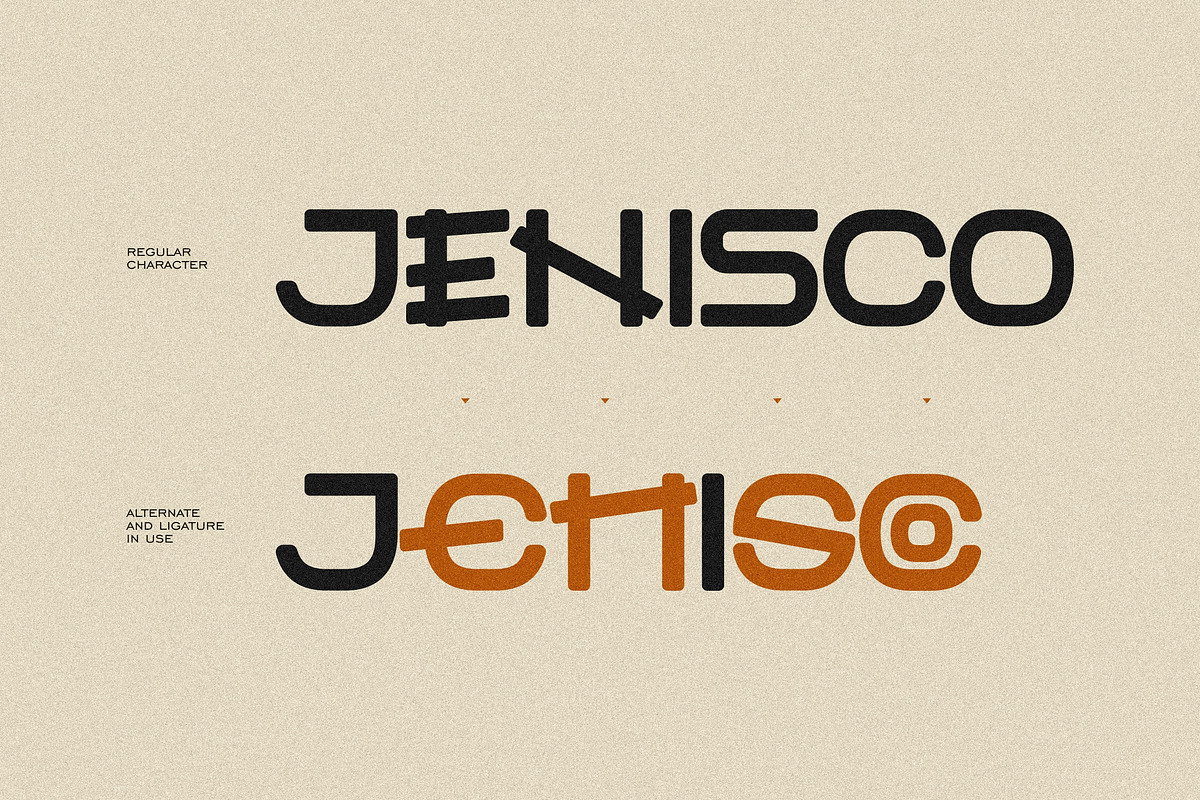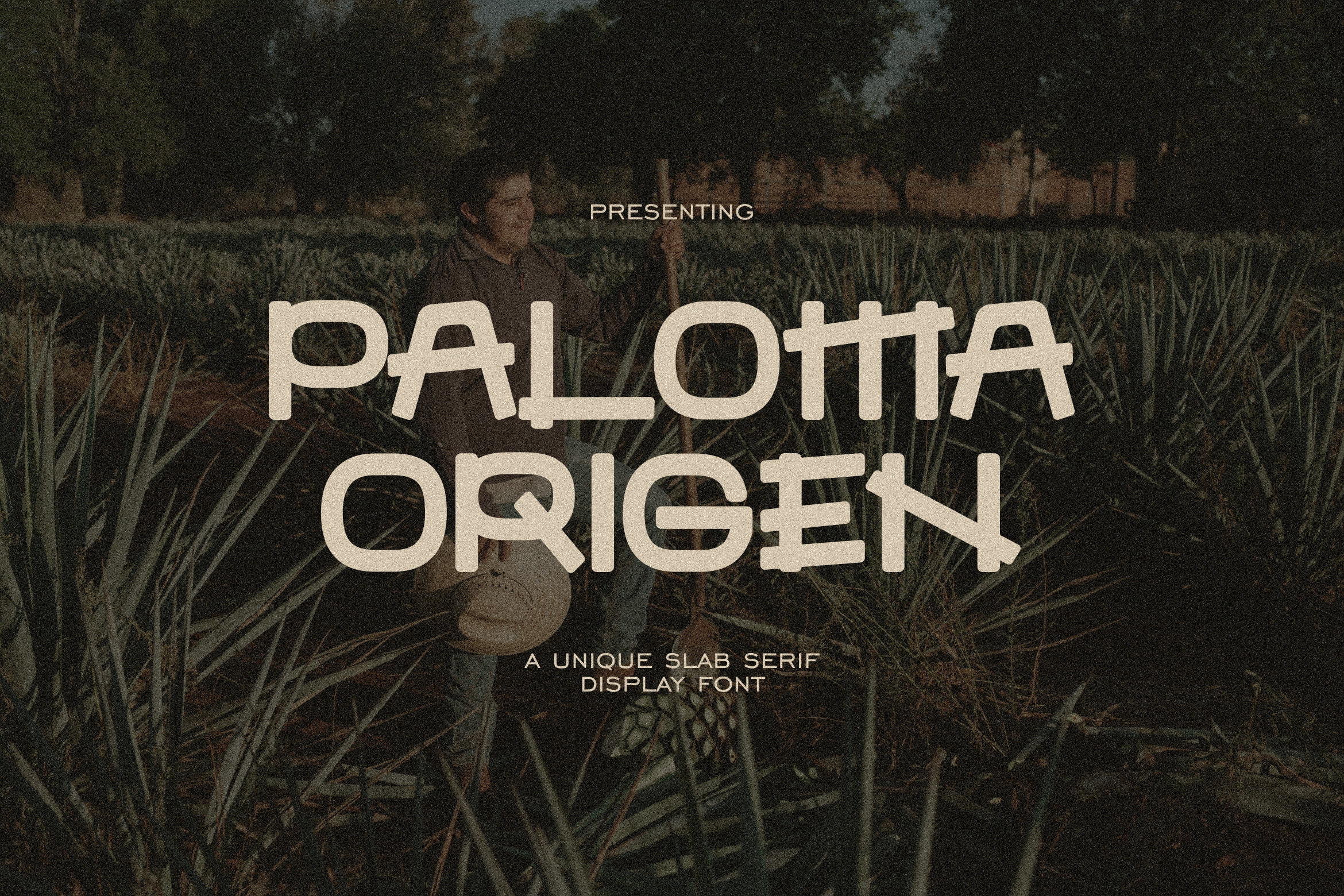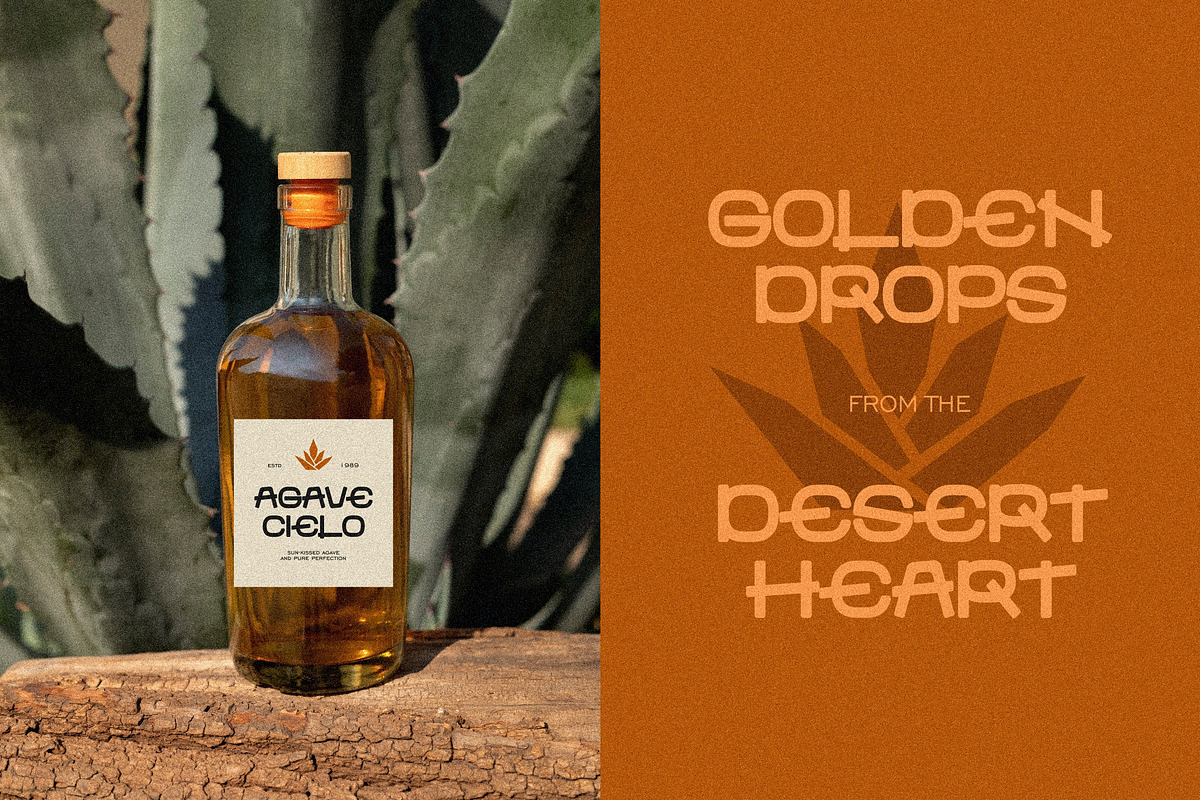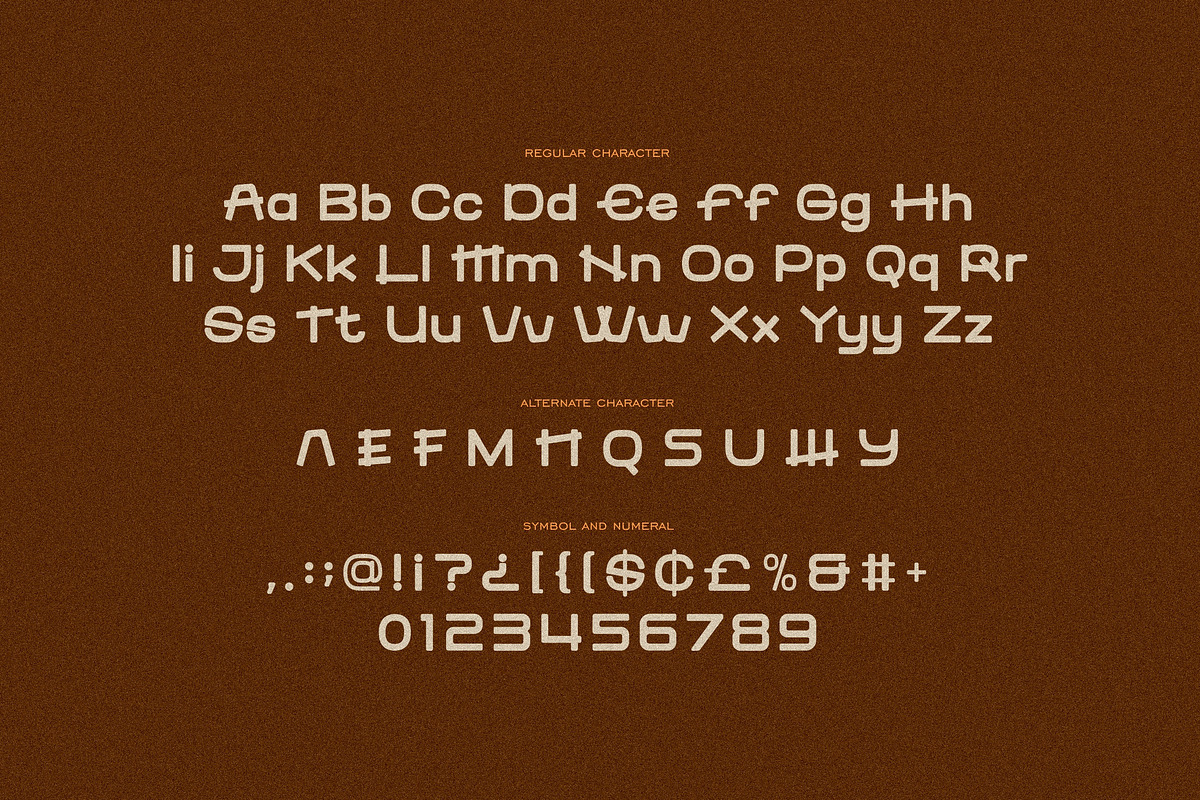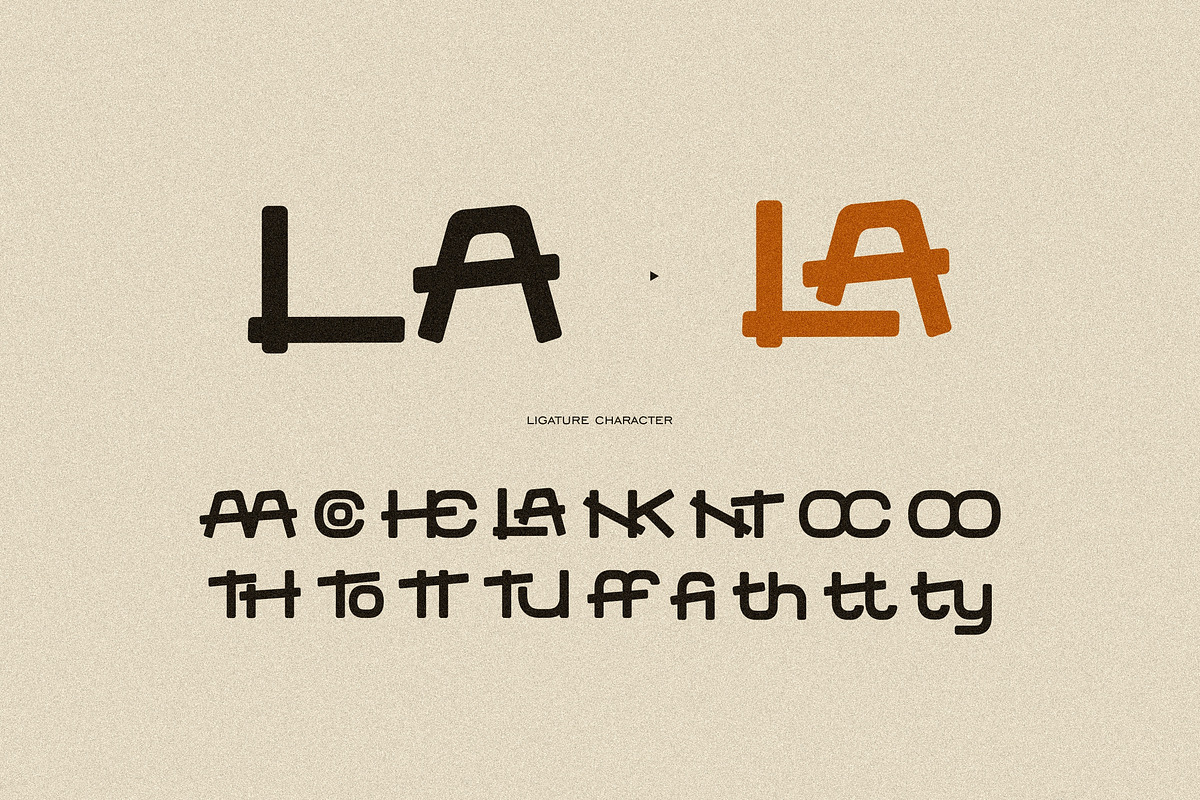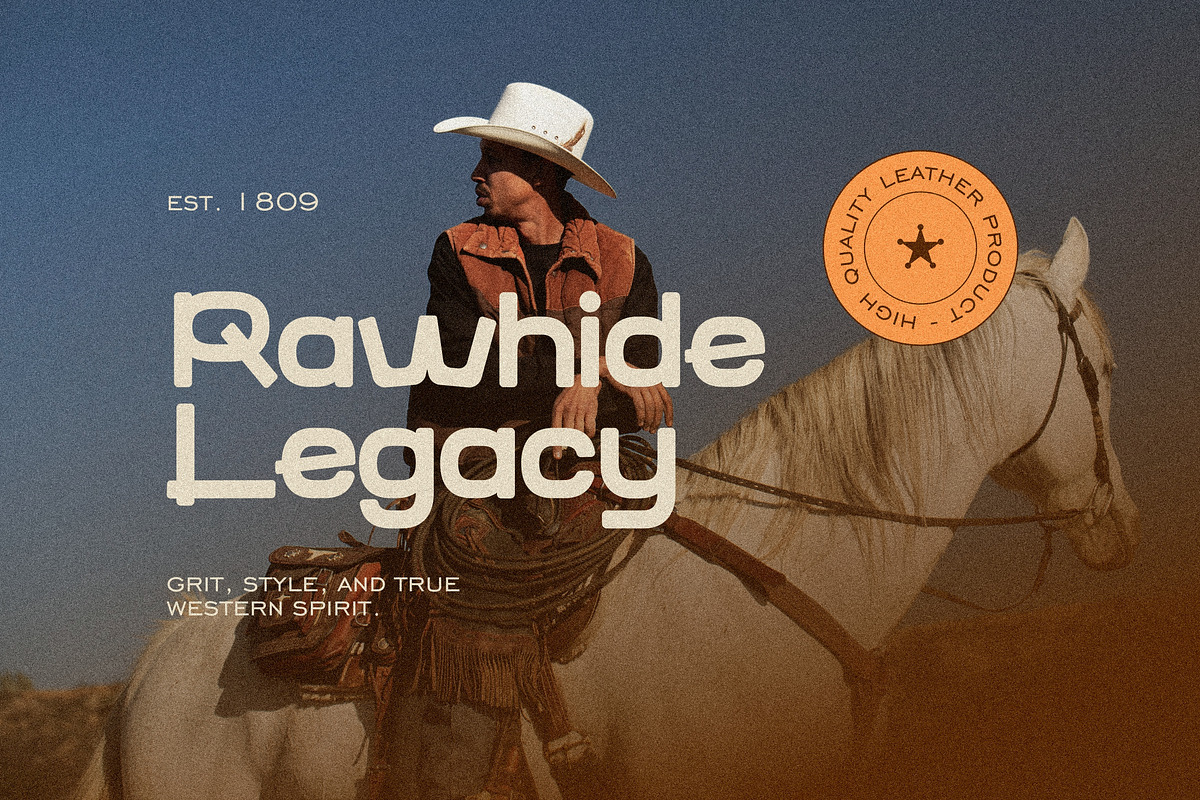
Paloma Origen Handdrawn Vintage Font
Paloma Origen is a handdrawn vintage typeface and character rich display font that bridges modern versatility with raw Western spirit. Inspired by desert landscapes and sun soaked agave traditions, this typeface carries a gritty yet contemporary personality perfect for branding, packaging, editorial, and signage.
The letterforms feature unique alternates, ligatures, and stylized cuts that echo handcrafted imperfections while maintaining geometric balance. Its versatility allows you to shift between sleek modern looks and rugged, heritage driven aesthetics, making it a go to font for brands that want to capture authenticity and style.
Whether you're designing for artisanal beverages, Western apparel, or bold creative campaigns, Paloma Origen provides the typographic voice of resilience, craft, and timeless character.
Ton of Glyphs
Uppercase and Lowecase Characters.
Numerals and Punctuations.
Alternates and Ligatures.
Multilingual Support.